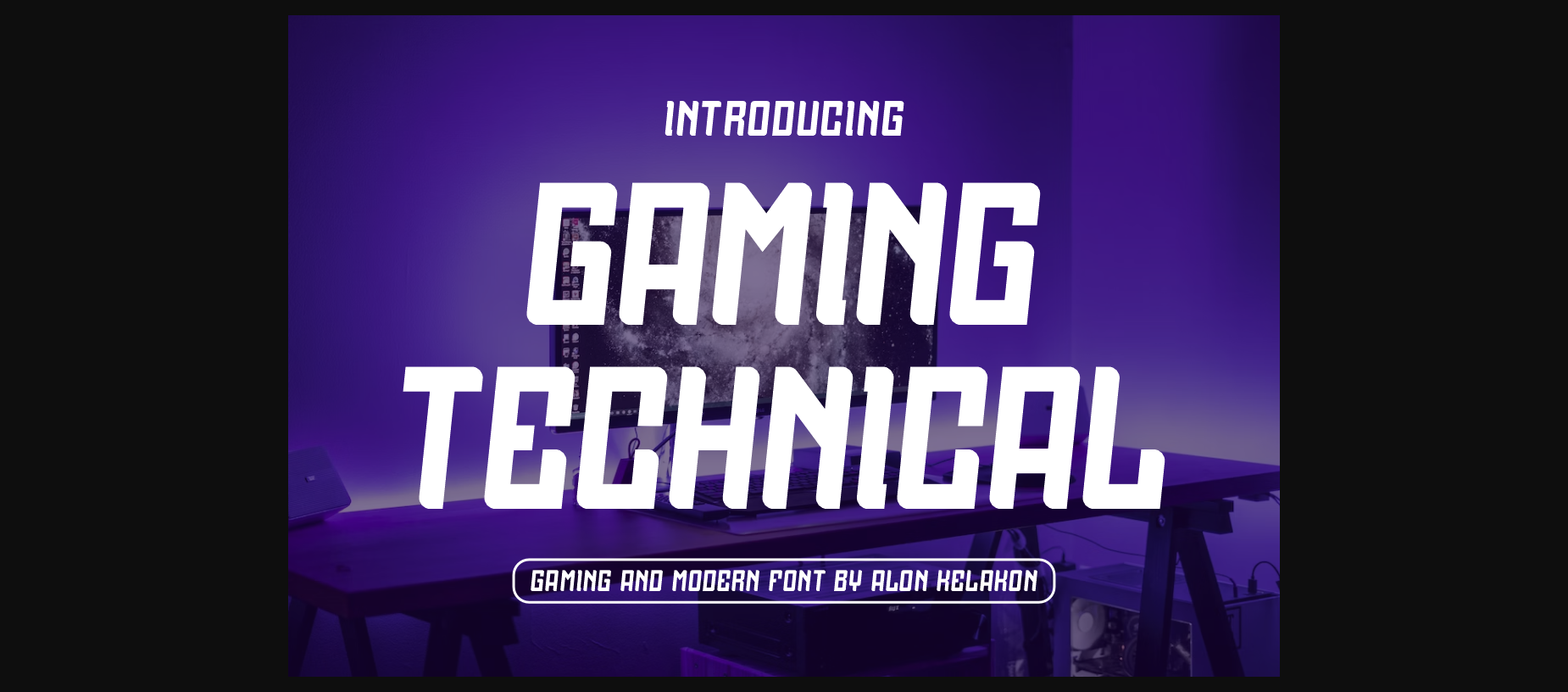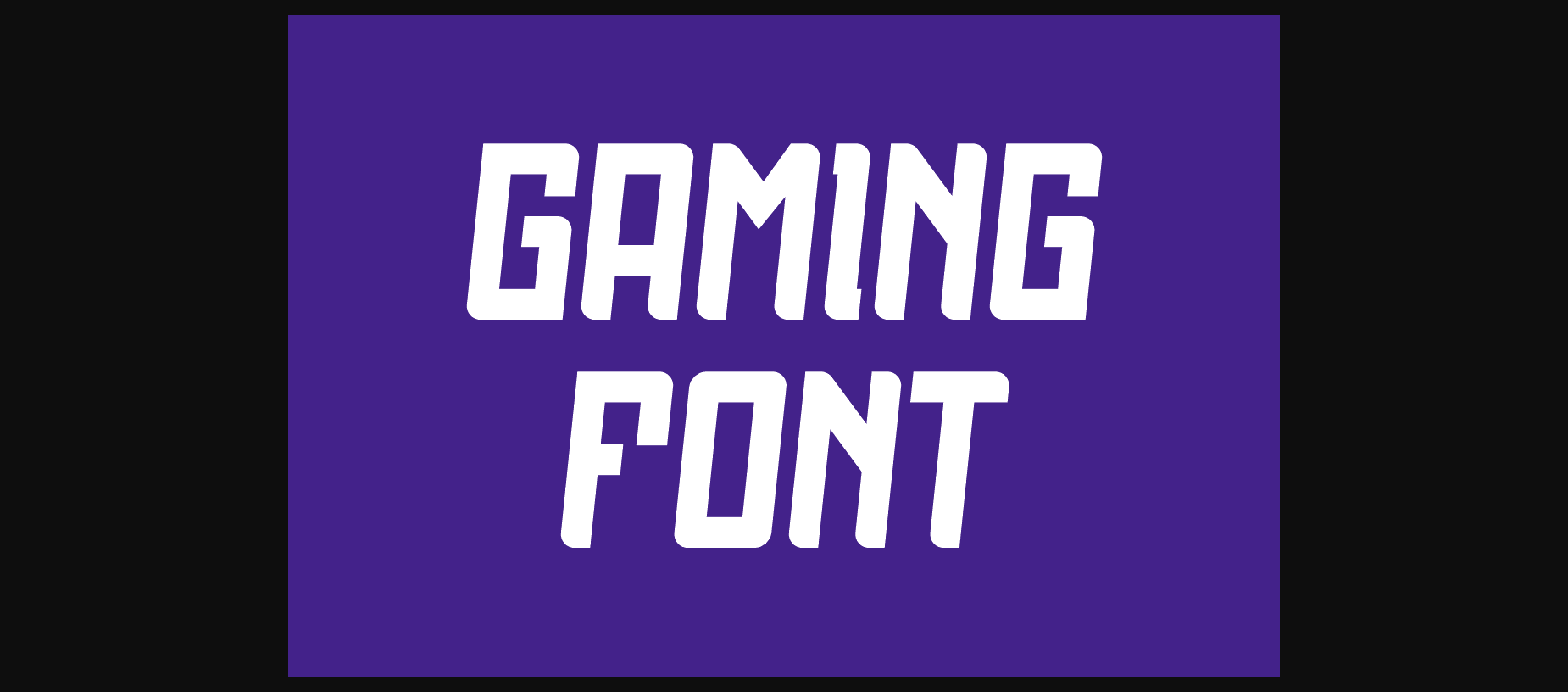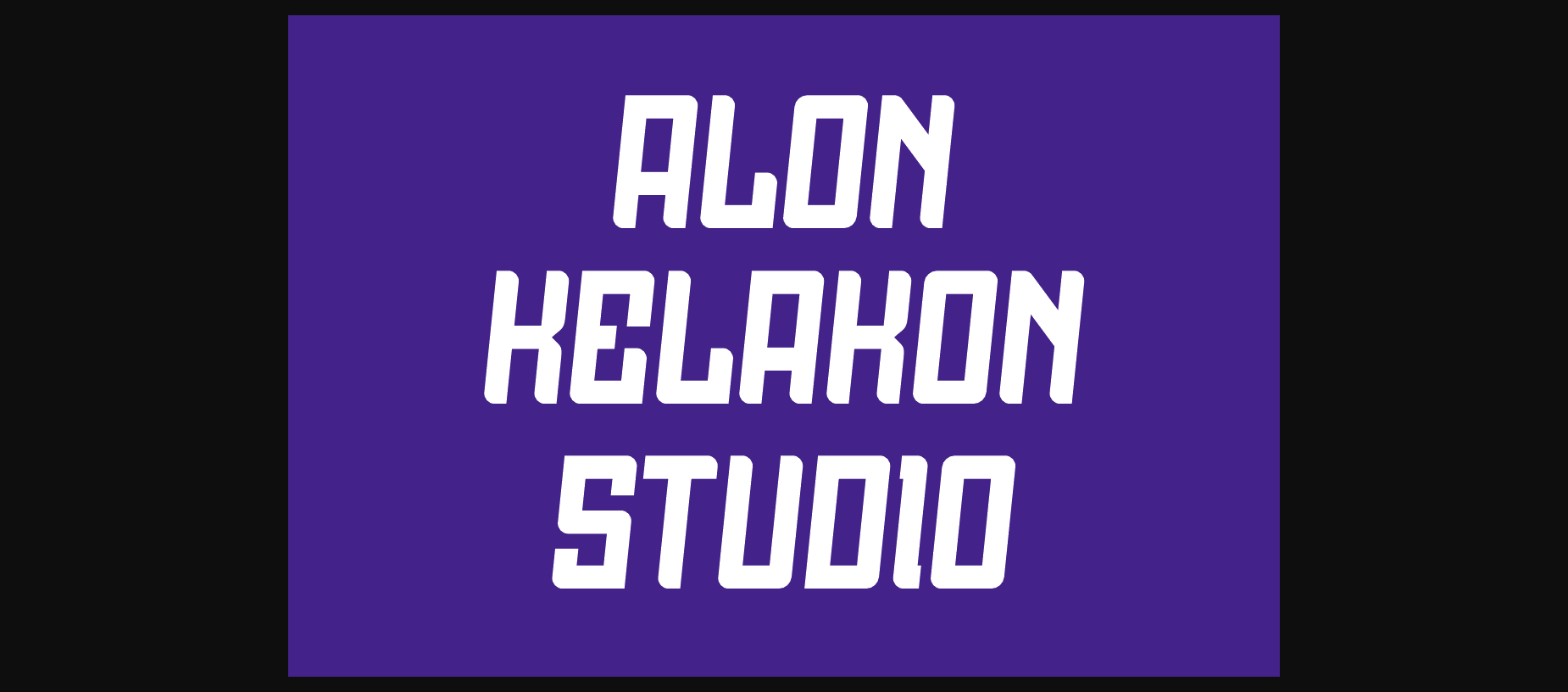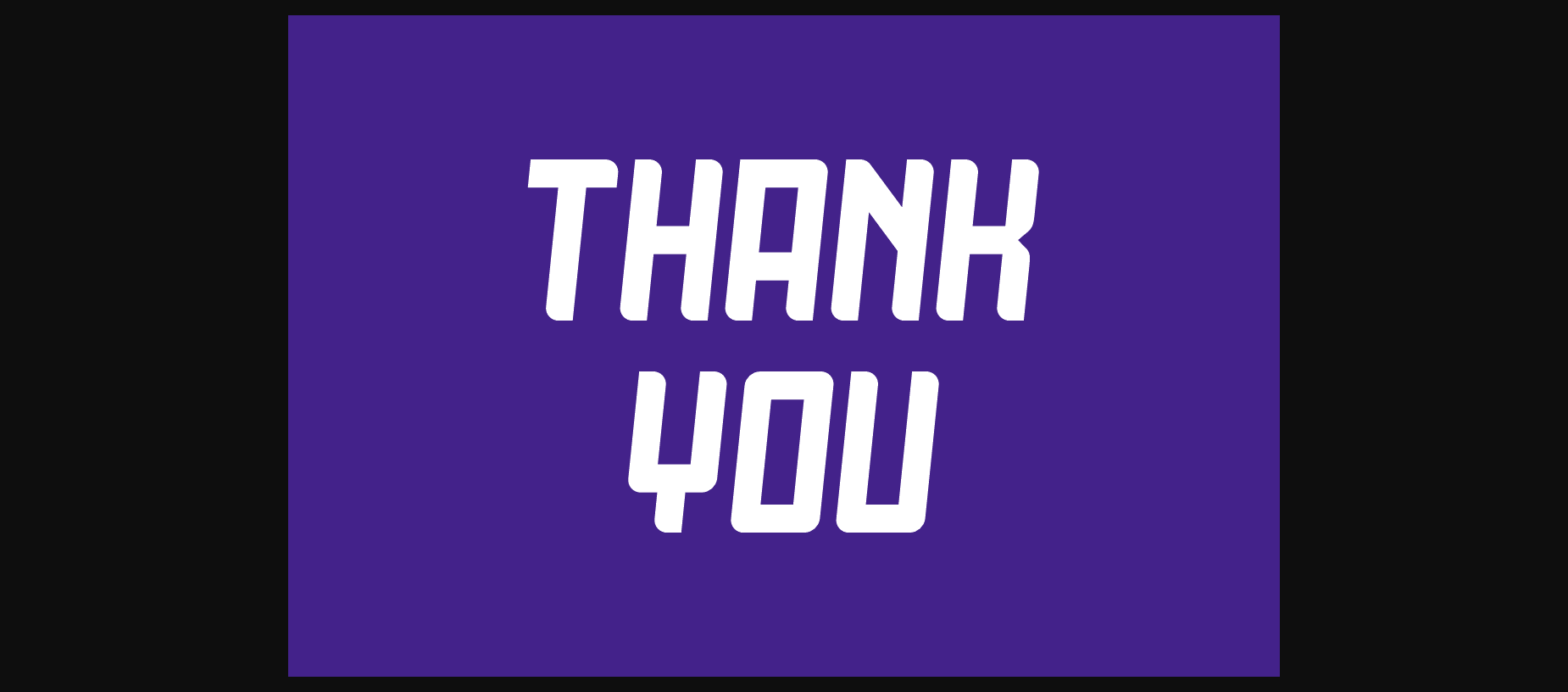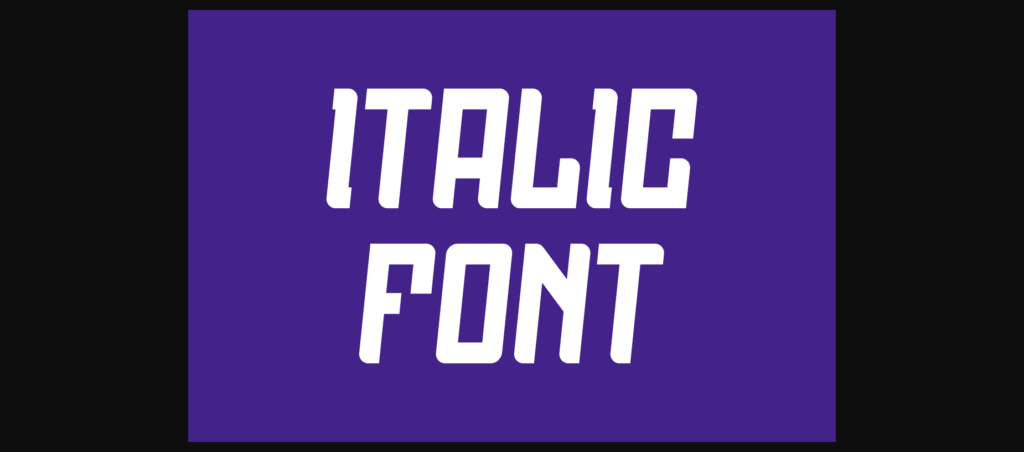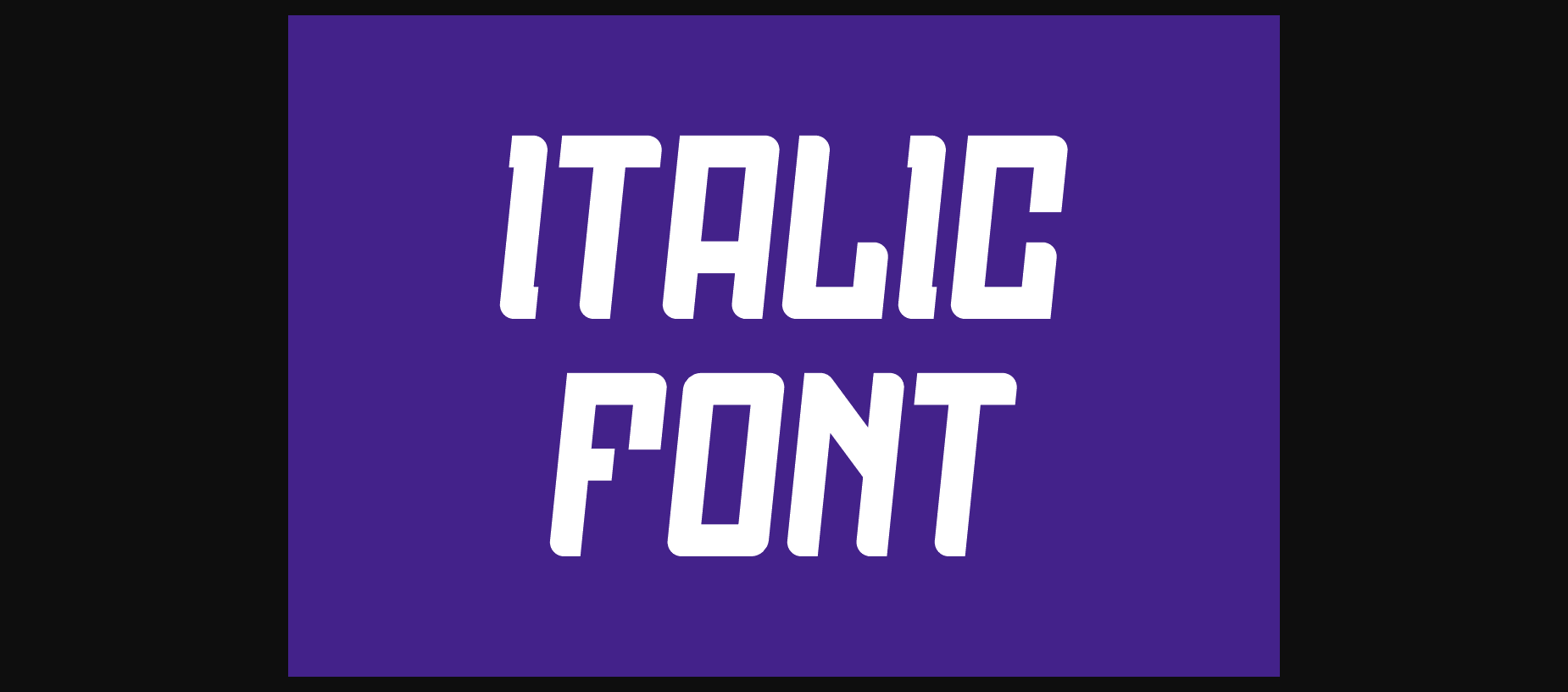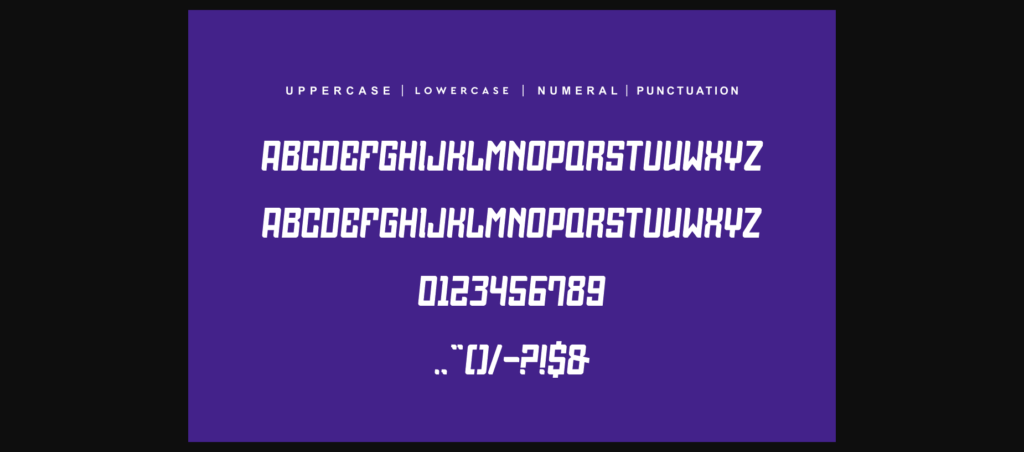
HomeSans Serif FontsGaming Technical Font Sans Serif Fonts Gaming Technical Font FacebookXPinterestWhatsApp 1 of 8 ... Gaming Technical Font Poster 2... Gaming Technical Font Poster 3... Gaming Technical Font Poster 4... Gaming Technical Font Poster 5... Gaming Technical Font Poster 6... Gaming Technical Font Poster 7... Gaming Technical Font Poster 8... About Gaming Technical Font Gaming Technical is a bold, all caps display font featuring the perfect amount of trendiness. Whether you’re using it for crafting, digital designing, presentations or greeting cards making, it’s perfect! DOWNLOAD NOW People also explored Sonica Brush Minthas Script Font Enagol Math Rounded -4 fonts- Font Migoove Font The Rains Font Hello Jellita Font Madeline Font Ordinary Font Royal Sigils Font 463 0 TagsGaming Technical Font Previous articleTracing Fun FontNext articleMigthy Morphin Font LEAVE A REPLY Cancel reply Comment: Please enter your comment! Name:* Please enter your name here Email:* You have entered an incorrect email address! Please enter your email address here Website: Save my name, email, and website in this browser for the next time I comment. Personal Use Free Bebas Neue Font Personal Use Free Read more about this font Cloudy Night Personal Use Free Read more about this font Expaing Personal Use Free Read more about this font Open Store Personal Use Free Read more about this font BLOG How to Install and Use Fonts on Windows, macOS, and Web Projects How to Install and Use Fonts on Windows, macOS, and Web Projects Fonts are a crucial part of design and branding. Whether you’re designing a... Free vs Paid Fonts: Why Investing in Premium Fonts Is Worth It The 10 Best Handwriting Fonts to Add Personality to Your Designs To increase your work productivity, choose the most readable fonts.